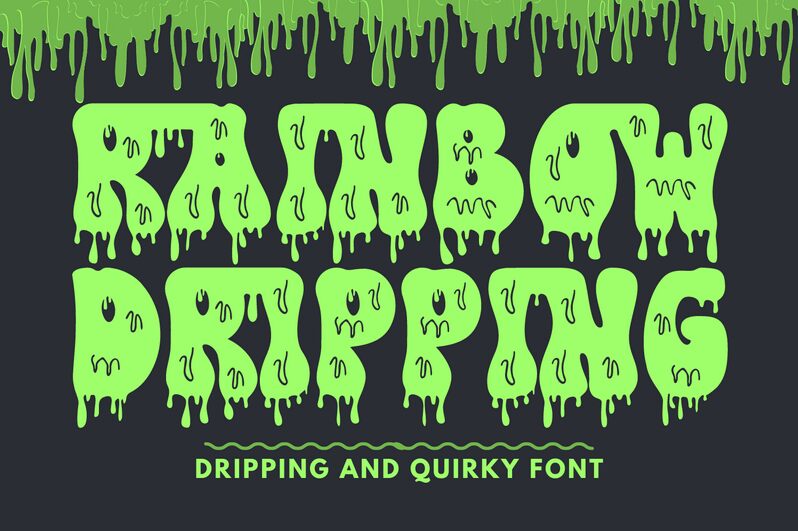
Rainbow Dripping font family by 177Studio is a free font set made in a holiday style for those always looking for new ways to attract attention and entertain. Spooky, quirky, and fun, this decorative font is characterized by unusual organic shapes which convey an eye-catching dripping effect. This generous font set comes with a large set of symbols, numbers, punctuation, and Latin characters. This vibrant aesthetic makes it suitable for both traditional use in Halloween themes or contemporary applications in thematic posters, and advertisements.
The ragged bold lettering adds a fun and spooky element to every project whether it’s a logotype, typography, website, application, print design, or graphic design. It looks great on book covers and is suitable for posters, brochures, advertisements, stickers, and pretty much anything else you can imagine. Merchandise, fashion products, magazines, and newspapers can also be interesting applications for Rainbow Dripping.